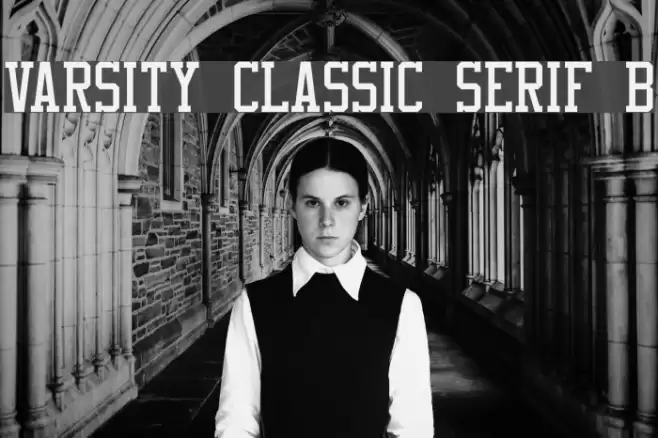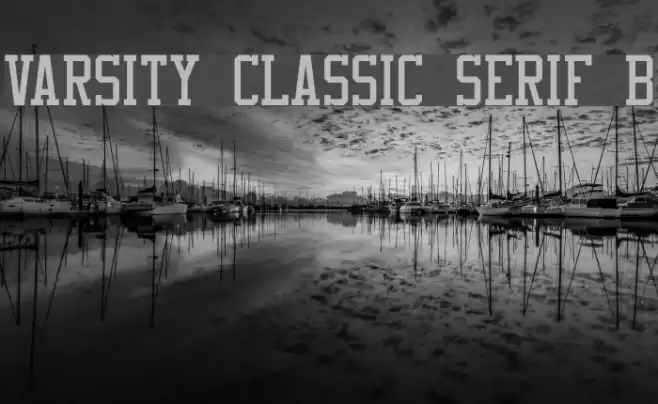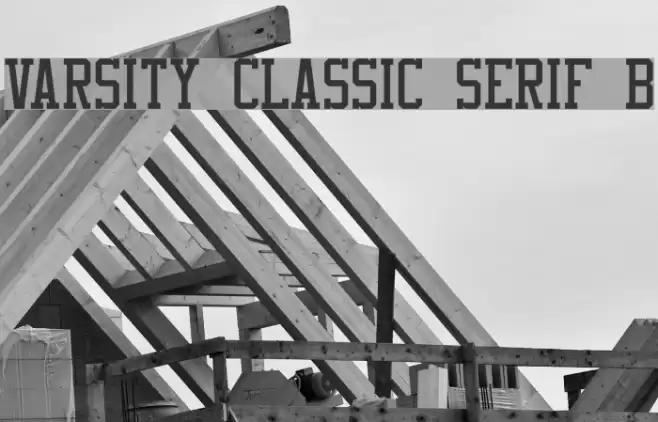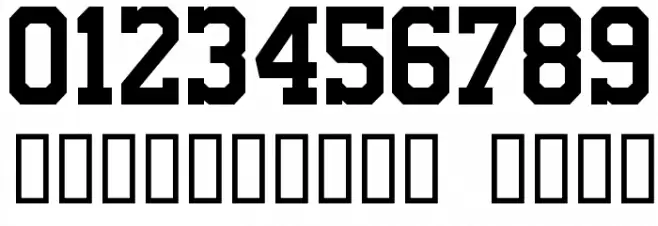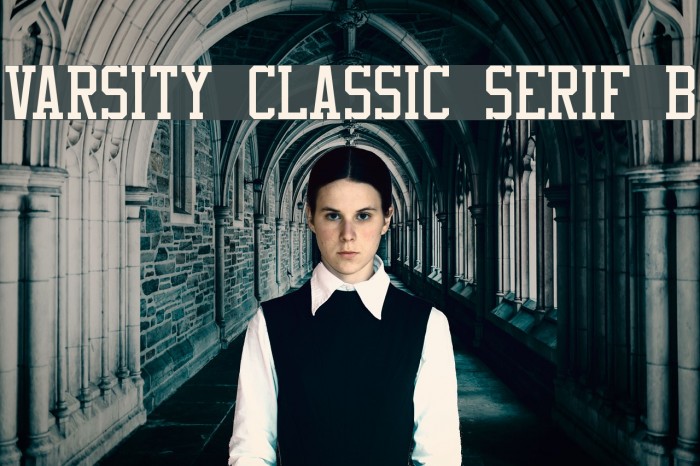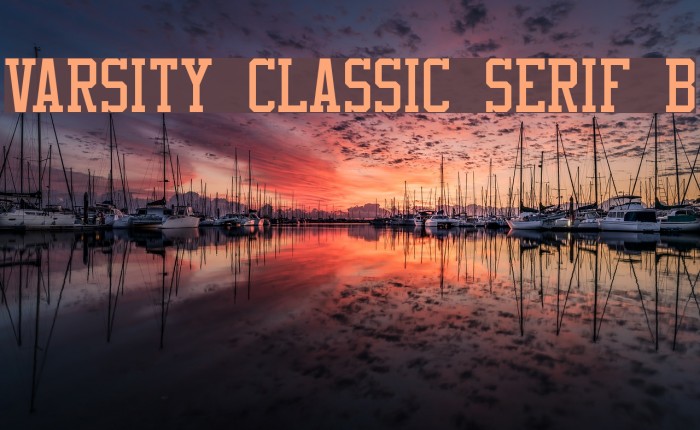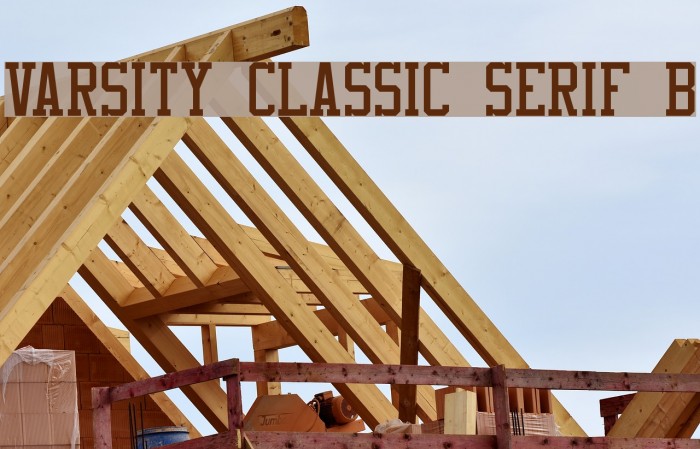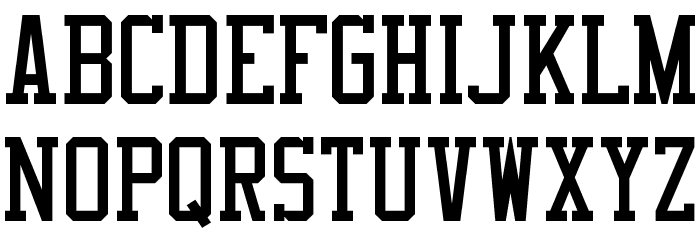
Varsity Classic Serif B Font
Varsity Classic Serif B Description
This font features a bold and robust design with a classic serif style, reminiscent of traditional varsity or collegiate lettering. The characters are blocky and strong, with pronounced serifs that add a touch of elegance and formality. The uppercase letters are particularly striking, with a uniform height and width that convey a sense of stability and authority. The numbers are equally bold, maintaining the same weight and presence as the letters. This font is ideal for projects that require a strong, impactful typeface that commands attention while still retaining a classic and timeless appeal.
- Proposed Projects: Ideal for sports team branding, school logos, event posters, and merchandise designs.
- Overall Style: Classic